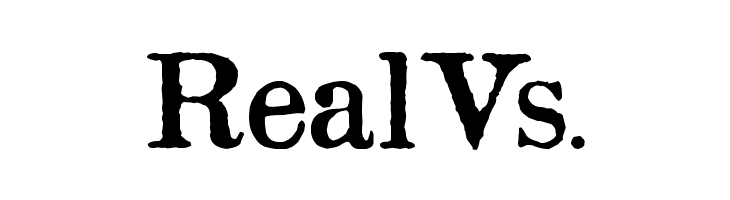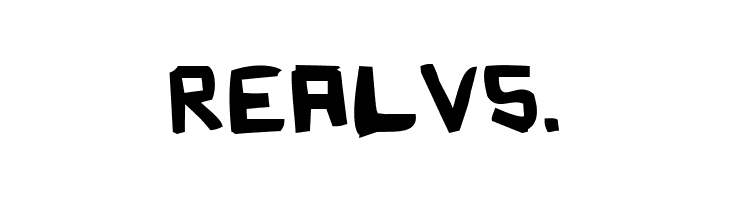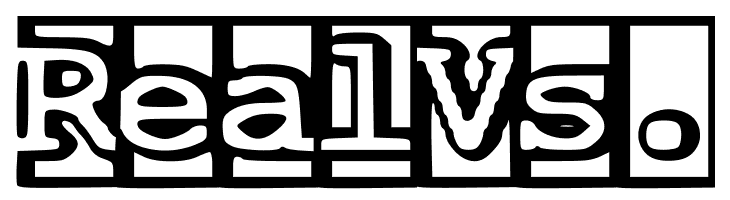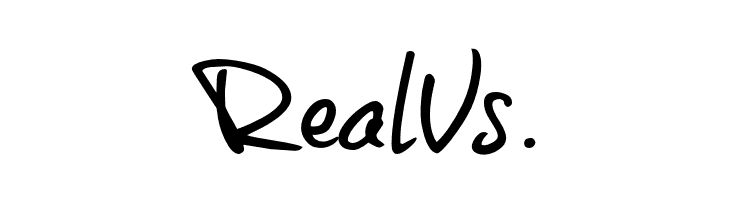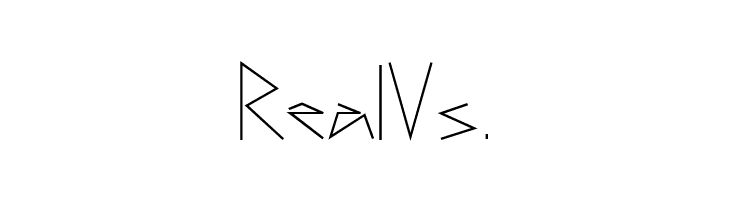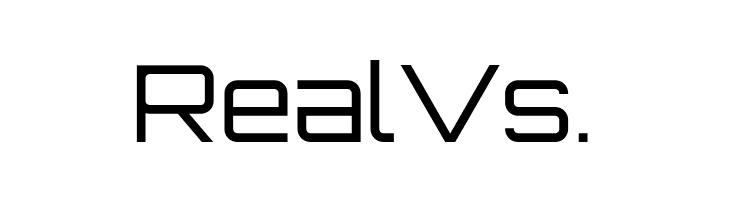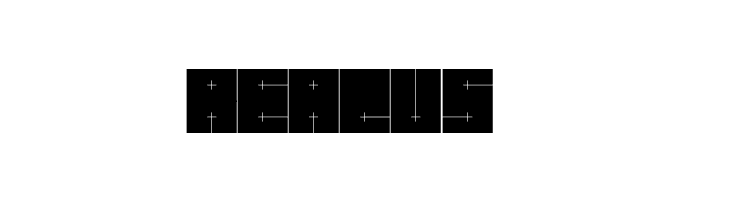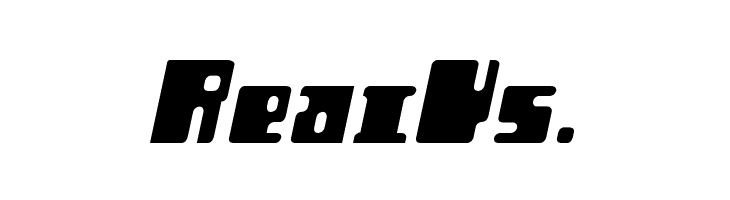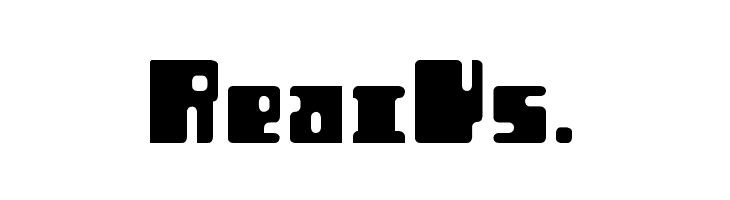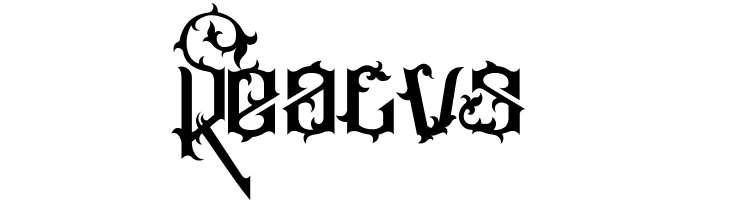
A bold, modern font with geometric curves and playful elements.
A modern, angular font with sharp geometric lines and a futuristic style.
A dynamic, expressive handwritten font with fluid strokes and playful character.
A playful, bold, and hand-drawn style font with a cartoonish feel.
A bold, graffiti-inspired font with a playful and dynamic style.
A bold, vintage-style font with a textured, distressed appearance.
A pixelated, blocky font with a retro digital style.
A pixelated, retro-style font inspired by early digital displays.
A bold, futuristic font with geometric and angular design elements.
A futuristic, geometric font with bold, clean lines and a digital aesthetic.
A sleek, futuristic font with geometric shapes and a modern aesthetic.
A futuristic, geometric font with clean lines and a tech-inspired aesthetic.
A futuristic, geometric font with clean lines and a modern aesthetic.
A futuristic, geometric font with bold, clean lines and squared edges.
A futuristic, geometric font with clean lines and a modern aesthetic.
A futuristic, geometric font with clean lines and angular shapes.
A playful, handwritten font with rounded, irregular letterforms.
A modern, geometric stencil font with bold, angular lines and a futuristic feel.
A bold, angular font with geometric forms and a modern aesthetic.
A bold, geometric font with a strong, industrial aesthetic.
An ornate and decorative font with intricate swirls and flourishes.
A bold, geometric font with a futuristic and cohesive design.
Bold, angular font with outlined, three-dimensional characters.